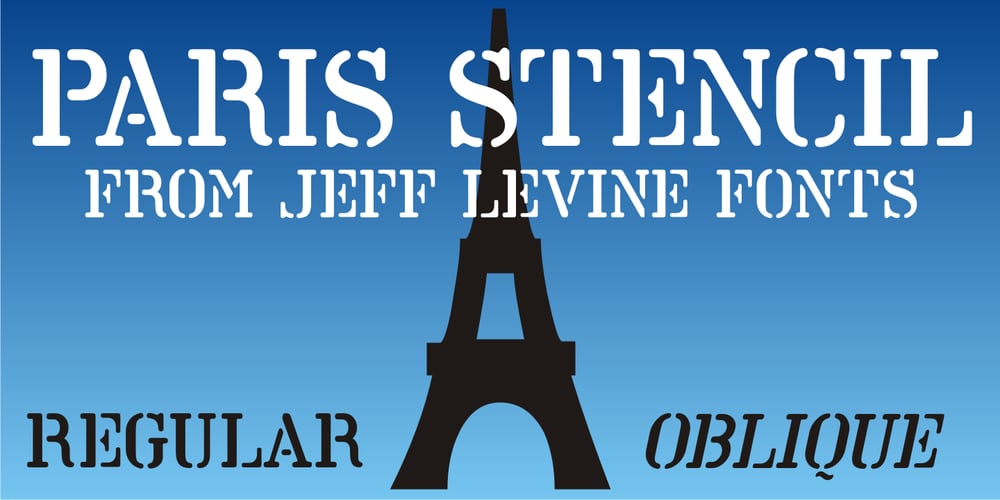
Paris Stencil JNL
Paris Stencil JNL font
Paris Stencil JNL Font Family was designed by Jeff Levine and published by Jeff Levine. Paris Stencil JNL contains 2 styles and family package options. Vintage French tin stencils with various phrases were the model for Paris Stencil JNL. The type design is available in both regular and oblique versions.